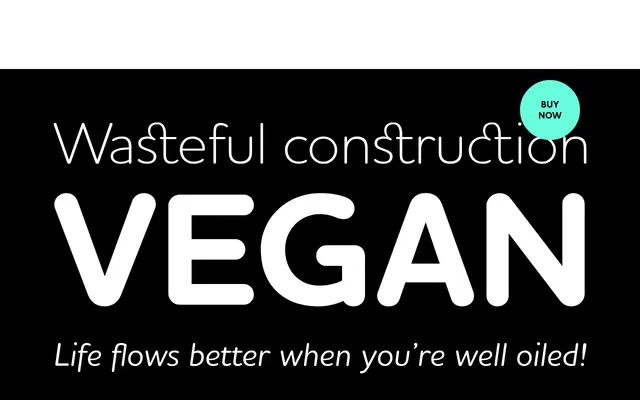
Houschka Rounded Alt
G-Type · Nick Cooke
An alternate-character variant of Houschka Rounded, swapping arched A and W for straight versions whilst retaining the full rounded geometric personality of the original.
Houschka Rounded Alt is identical to the parent Houschka Rounded family in every respect except that straight-sided A and W characters are set as the default, with the arched originals remaining accessible via OpenType alternates. Inspired by the rounded lettering above an old Austrian sweet shop in Salzburg once owned by Georg Houschka, the family carries 12 styles with extended Latin and Cyrillic coverage across over 50 languages. The OpenType feature set is generous, including three stylistic sets, small caps, four sets of numerals, ligatures and fractions — used commercially by brands such as Arla and the National Trust.
A soft-cornered linear sans with rounded terminals, placing it firmly in the geometric sans tradition; the rounded stroke endings distinguish it from a strict grotesque or humanist classification.